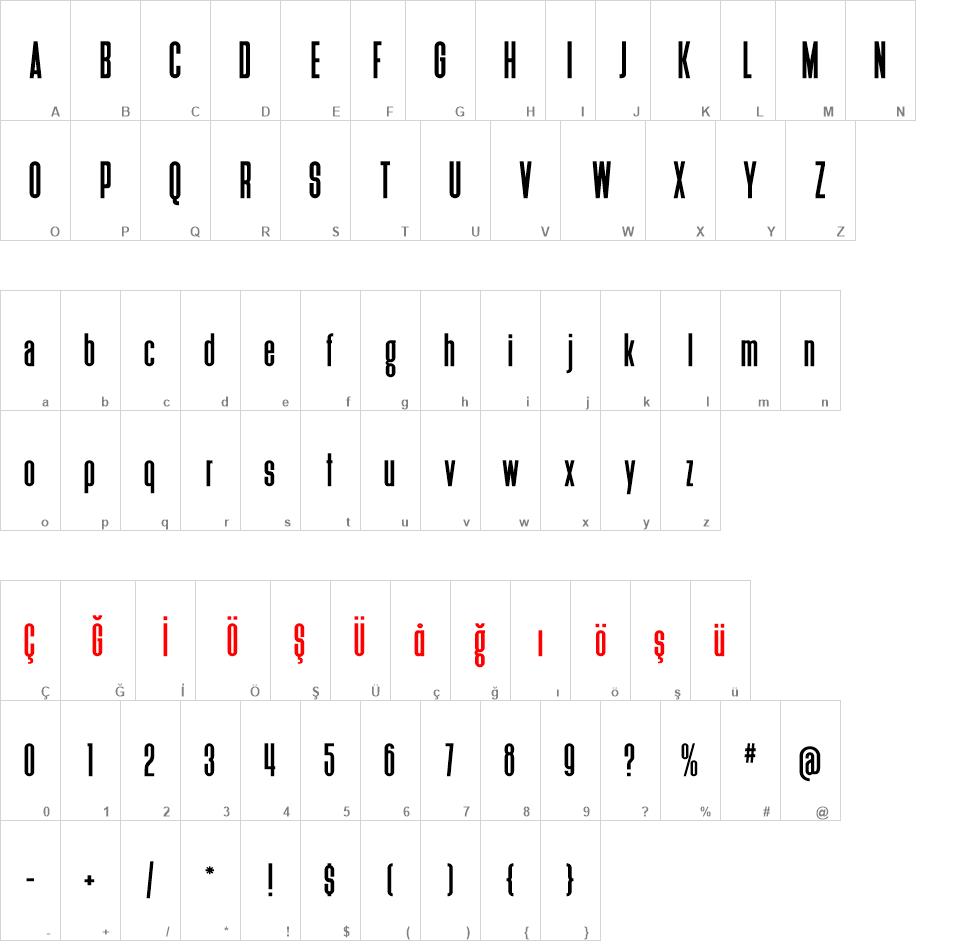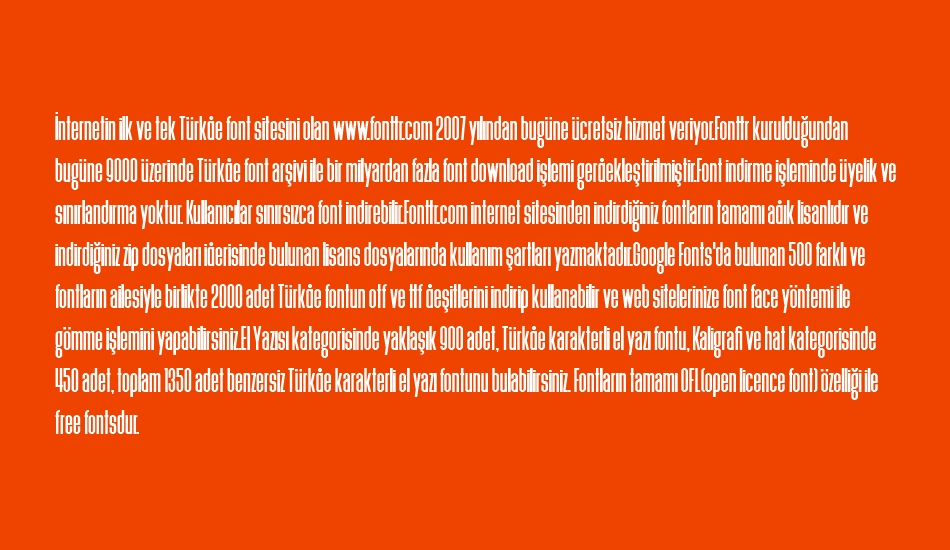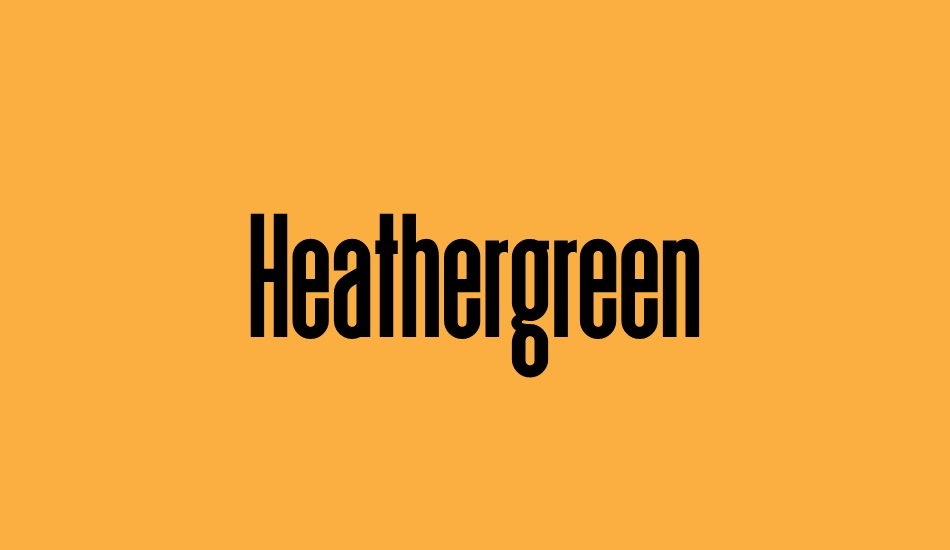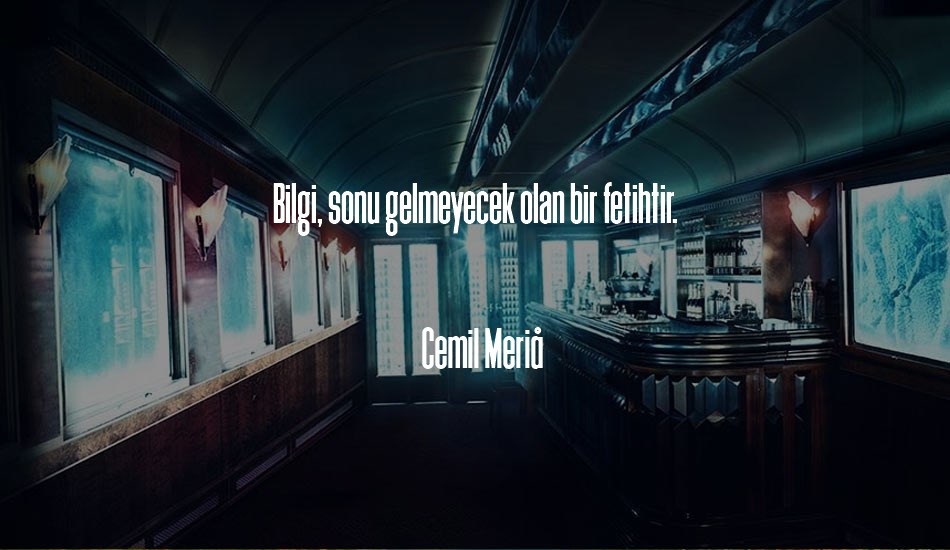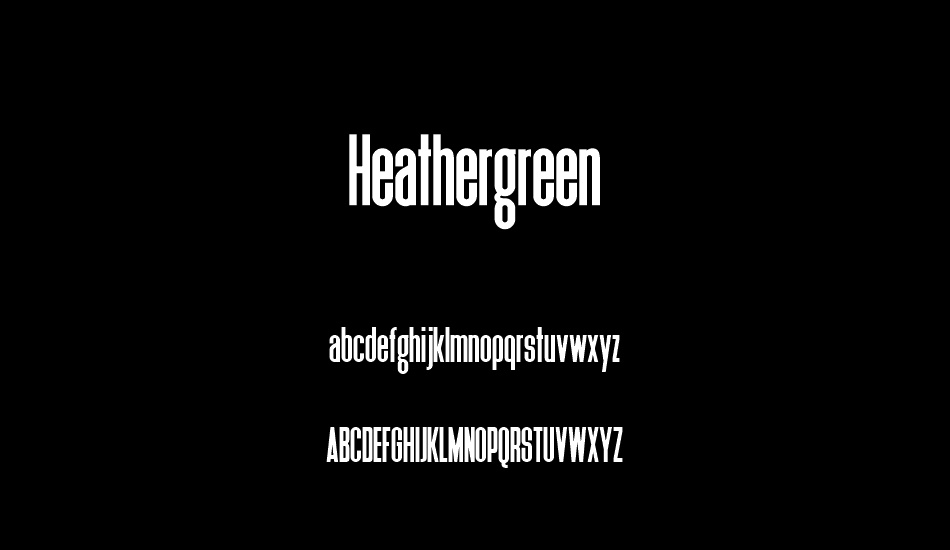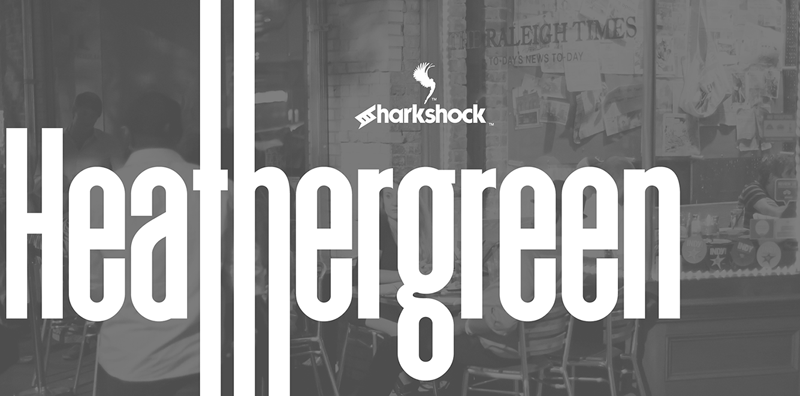
Heathergreen font
Heathergreen
by Sharkshock
This relative of Deutschlander is about 20% taller and designed to take up more vertical space. Unlike most of our display fonts this one is designed to fill body text or accompany titles. Included are basic/extended latin Greek, Cyrillic, and many other European accents and diacritics.